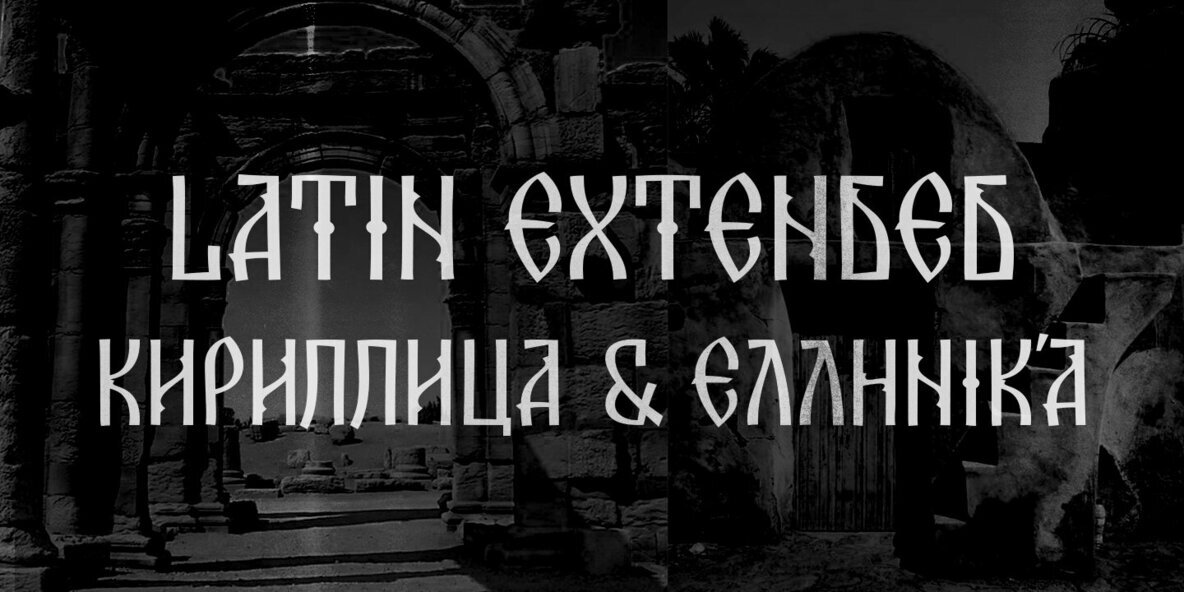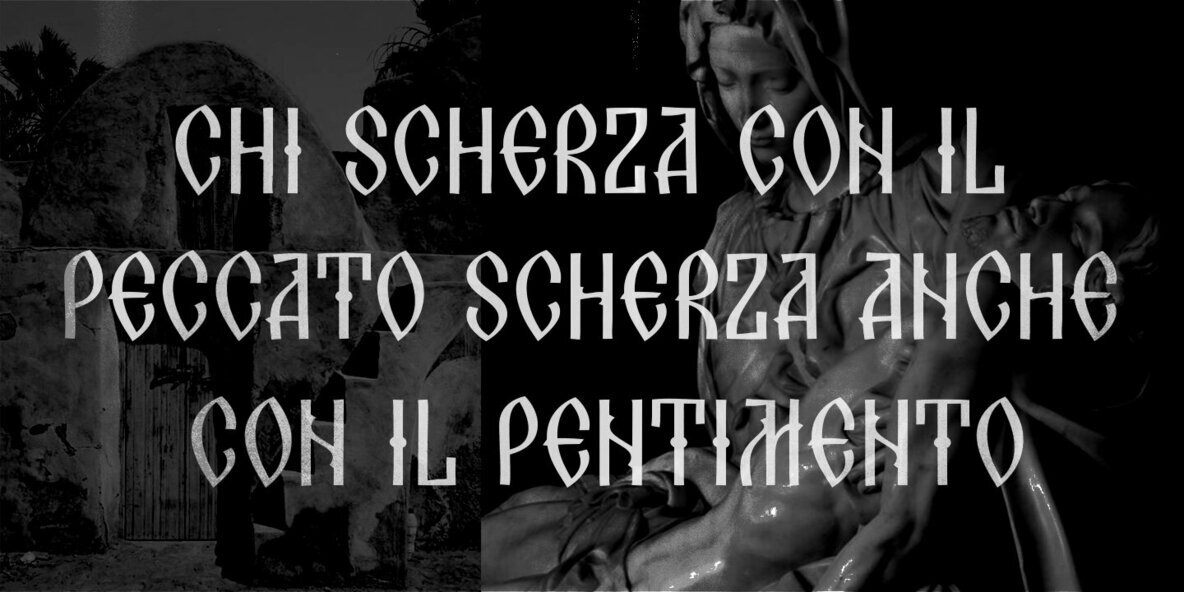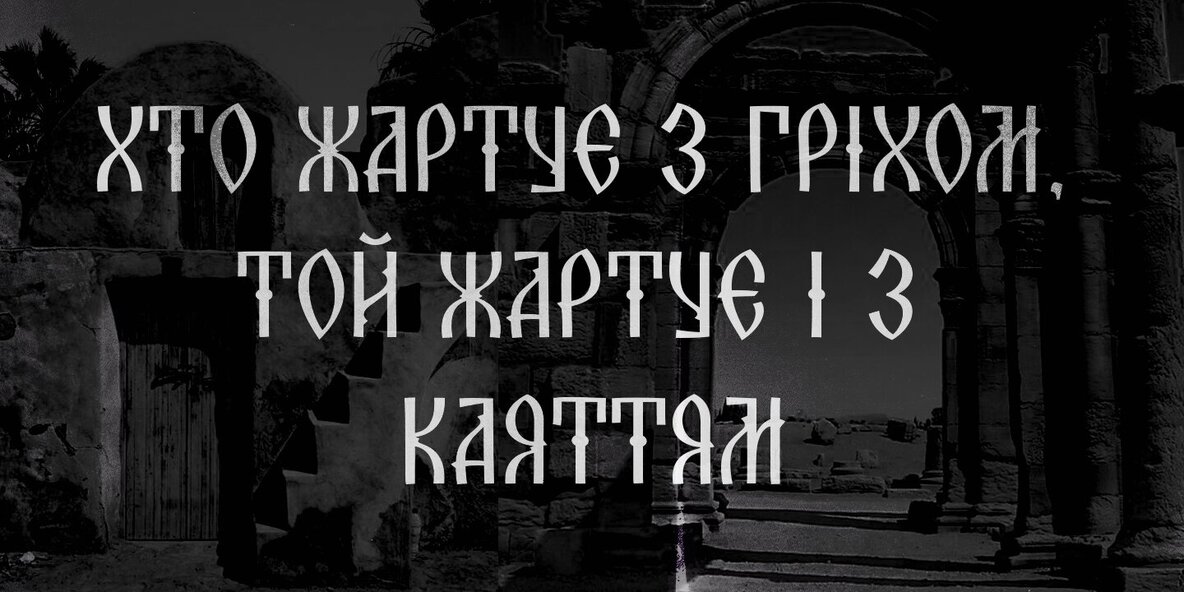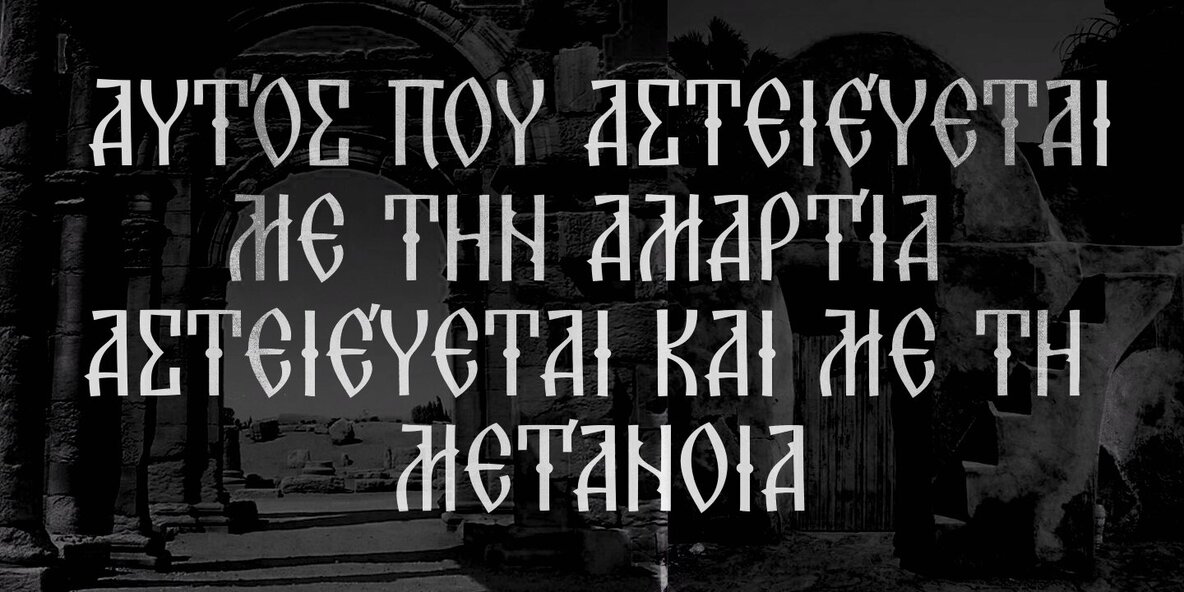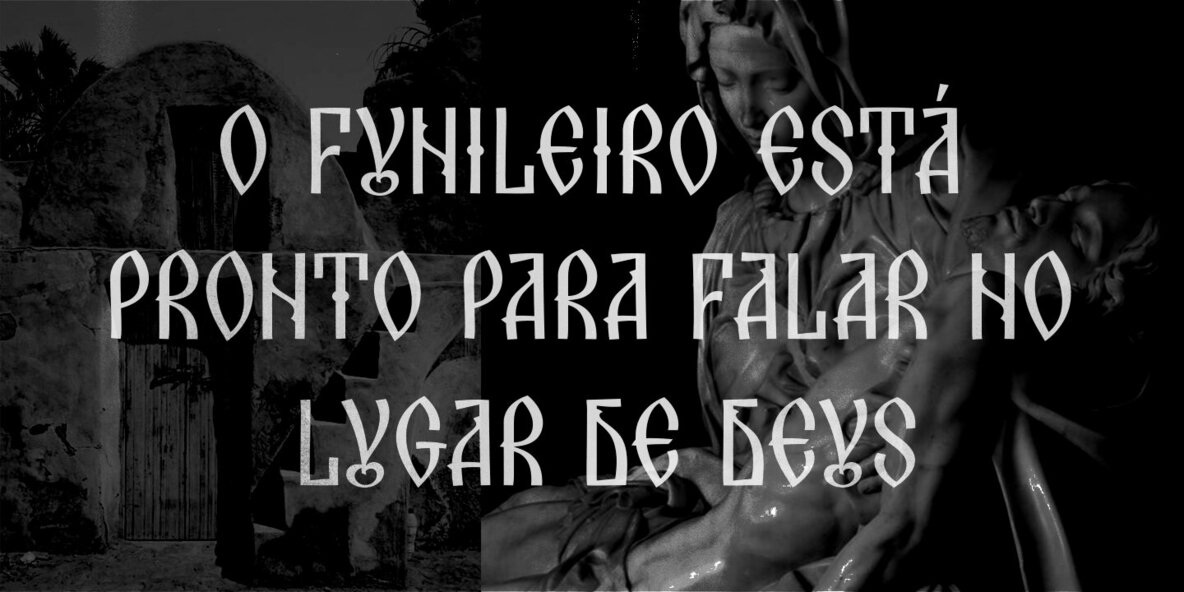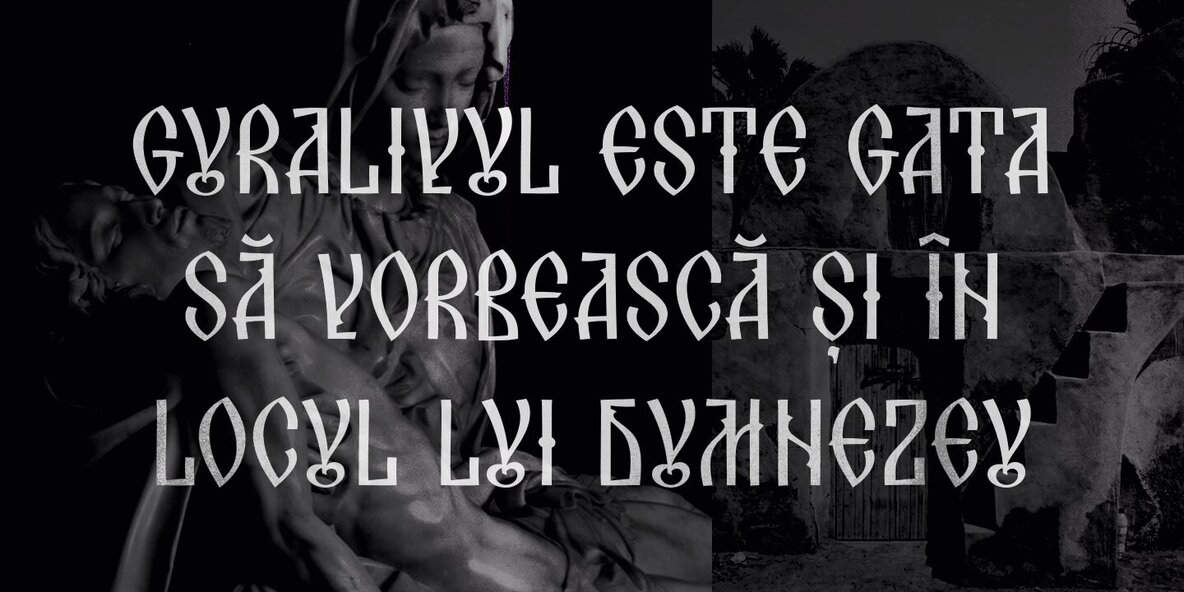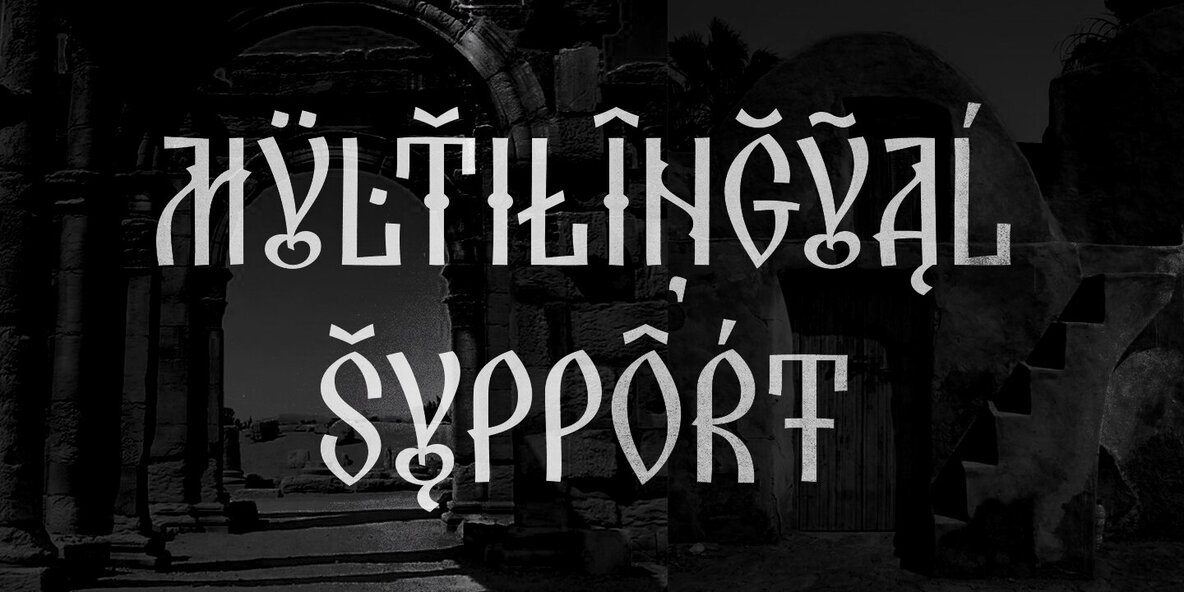
Capernaum Font
Capernaum Regular
Inspired from archaic slavonic calligraphy, with a powerfull old, but fresh and spontaneous look, CAPERNAUM is a display font designed in 2024 by Bogdan Balatchi for impactful, delicate and original headlines that has to do with historical or religious content. It covers most of Latin languages diacritics and also Cyrillics and Greek, so this font would be a valuable premium asset for designers that have to deal with historical and religious content in their projects.